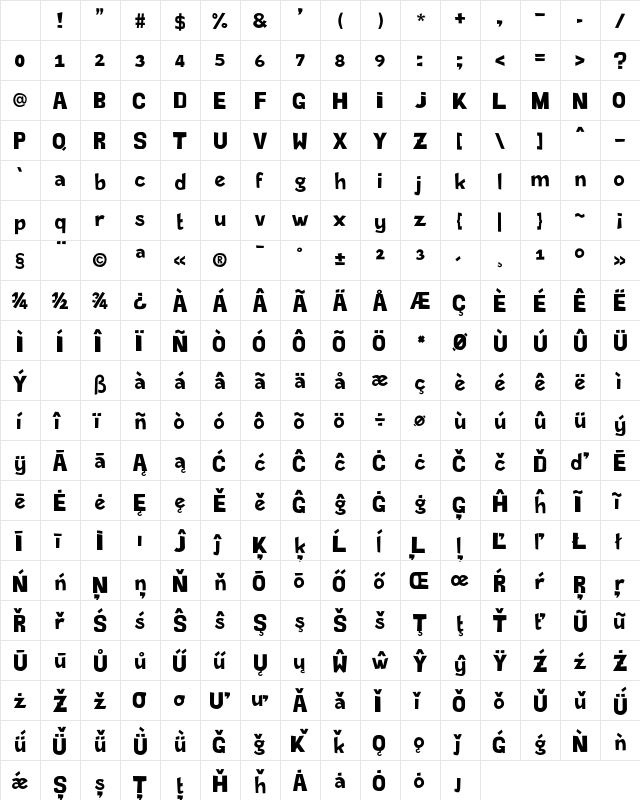
Complete Paris Je T'Aime Medium glyph index. Displaying only characters natively supported by Paris Je T'Aime Medium font.
Paris Je T'Aime is a composed and adaptable typeface that performs quietly and consistently across a wide range of design contexts.